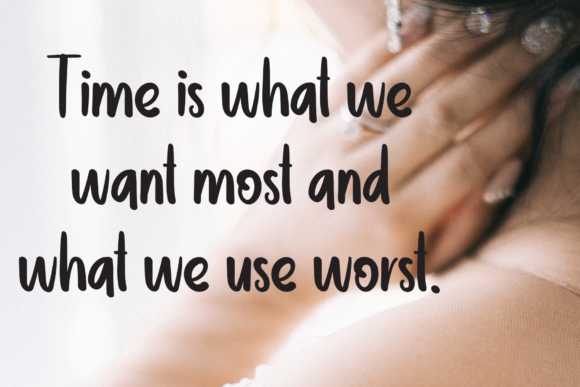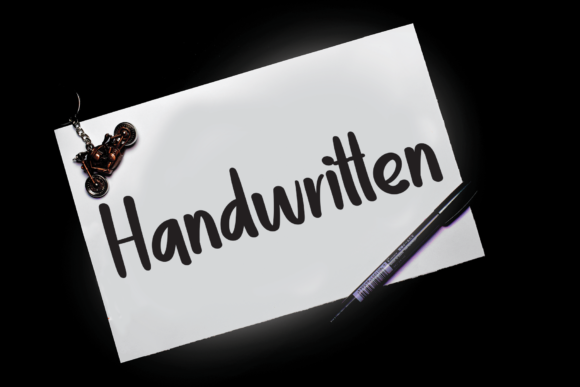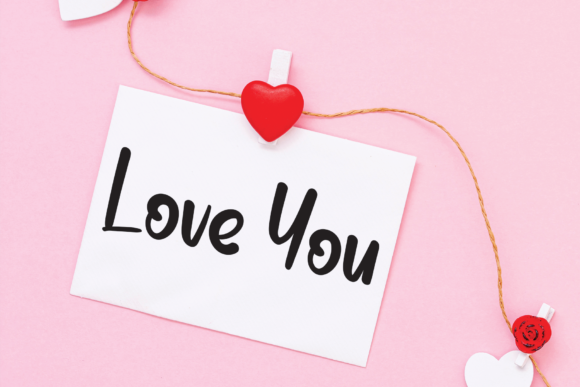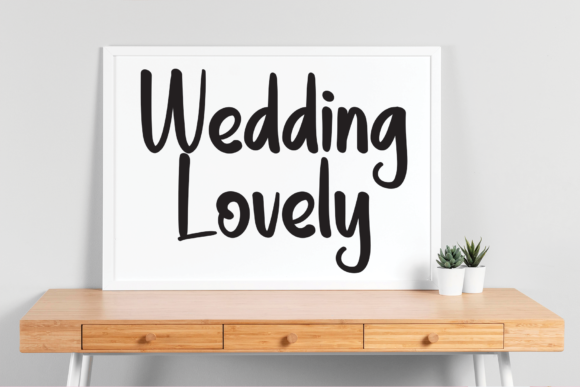
About Organic Font
Organic is a versatile and charming handwritten font that brings a touch of natural elegance to a variety of design projects. Its simplicity and uniqueness make it a perfect choice for adding a personal and artistic flair to your creations.
With its handcrafted appearance, Organic captures the essence of authenticity and originality. Each letter is carefully designed to maintain a balance between simplicity and beauty, creating a font that feels both approachable and refined. This makes Organic an excellent option for a wide range of applications.
For wedding invitations, Organic adds a sense of warmth and intimacy. Its handwritten style conveys a personal touch, making recipients feel special and cherished. Whether you’re designing formal or casual invitations, the font adapts seamlessly to different wedding themes, creating an inviting and heartfelt tone.
In the realm of business, Organic lends a friendly and approachable vibe to branding materials. Whether it’s business cards, letterheads, or promotional materials, the font’s organic and unpretentious appearance communicates a genuine connection with customers, clients, or partners.
Greeting cards come to life with Organic’s charming presence. Birthdays, holidays, and special occasions are elevated by the font’s whimsical and handwritten aesthetic. Its adaptability allows you to convey a range of emotions and sentiments, from joy and celebration to gratitude and sympathy.
Social media posts benefit from Organic’s natural and relatable style. Whether you’re sharing quotes, announcements, or lifestyle content, the font’s handwritten look adds a human touch to your online presence. Its simplicity and uniqueness stand out in crowded feeds, making your posts more engaging and memorable.
Wall art and home decor items become truly personalized with Organic. The font’s handcrafted feel transforms ordinary words into meaningful and artistic expressions, making your space feel warm and inviting. Whether it’s inspirational quotes, family names, or playful phrases, Organic adds a touch of character to any room.
One of Organic’s standout features is its adaptability. The font seamlessly transitions from formal to casual, making it suitable for a wide range of projects and design aesthetics. Its versatility ensures that it can be used across different mediums and platforms, maintaining a consistent and cohesive look.
Overall, Organic is a font that embraces the beauty of imperfection and celebrates the art of handwritten expression. Its simplicity, uniqueness, and adaptability make it a valuable asset for a variety of design projects, including wedding invitations, business cards, greeting cards, social media posts, wall art, and beyond. Whether you’re aiming for elegance, authenticity, or a touch of whimsy, Organic is a font that brings your creative vision to life.